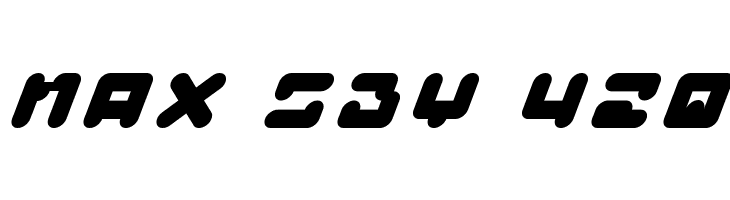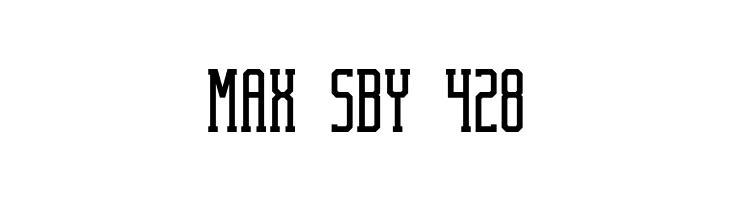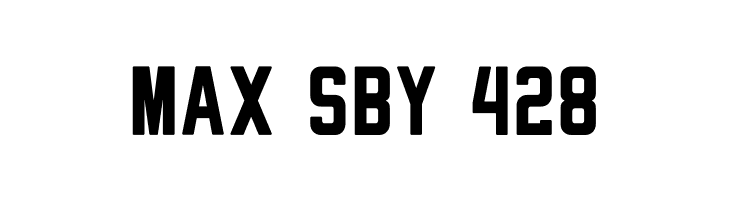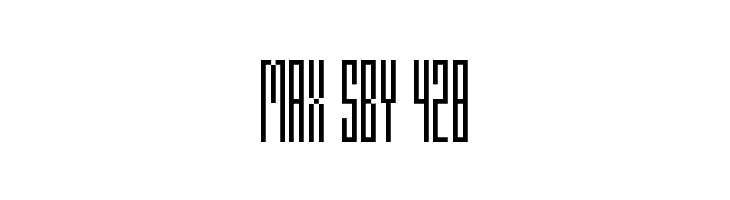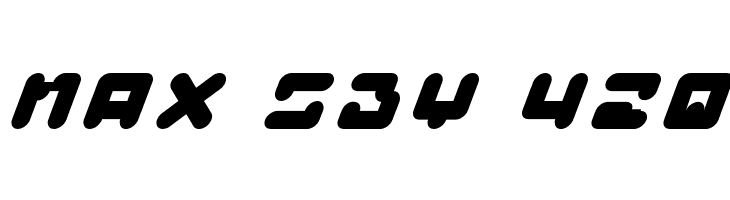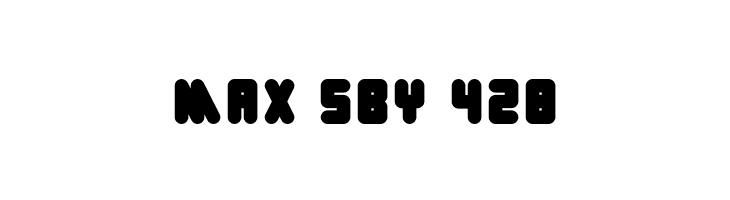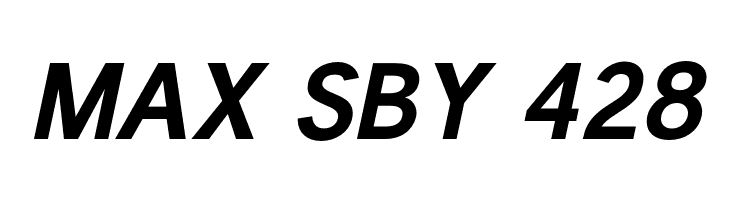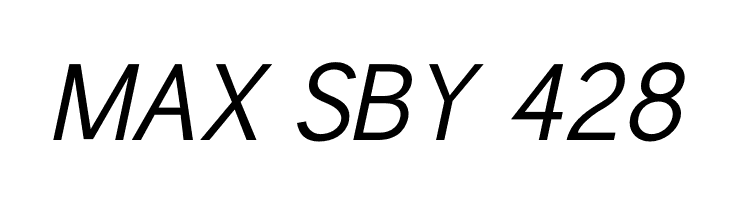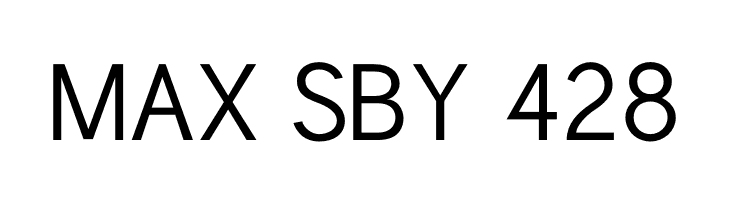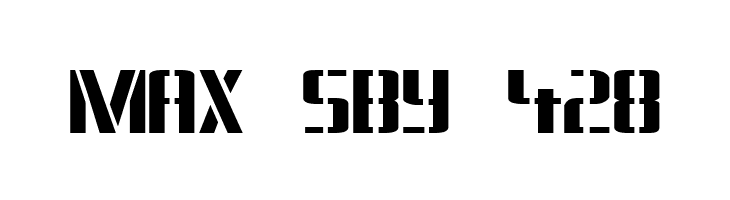
A bold, rounded, and italic font with a modern, futuristic style.
A pixelated, geometric font with a digital, retro aesthetic.
A pixelated, skewed font with a retro digital aesthetic.
A bold, rounded italic font with a modern and dynamic style.
A bold, condensed font with sharp angles and uniform stroke width.
A bold, geometric sans-serif typeface with a modern and clean design.
A condensed, geometric font with a pixelated, modern style.
A bold, rounded, and italic font with a modern and dynamic style.
A bold, rounded geometric font with a playful yet robust style.
A bold, italicized font with a strong and dynamic presence.
A modern, italic sans-serif font with clean lines and excellent readability.
A clean, modern sans-serif font with balanced spacing and legible characters.
A bold, clean sans-serif font with excellent legibility and impact.